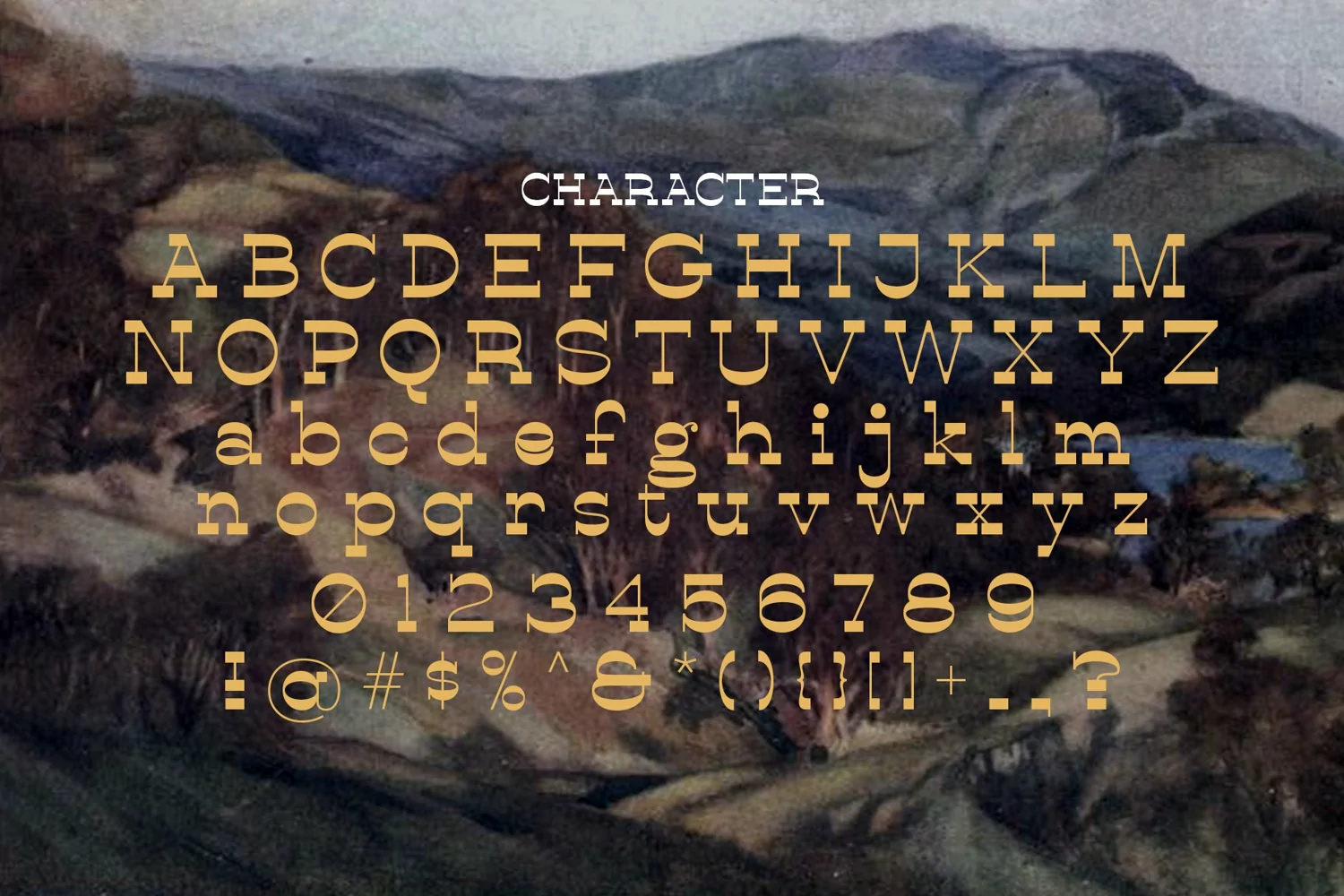
Agaria is a reverse contrast typeface. Perfect for display, poster, quotes, film, craft needs, book cover, business card, packaging, merchandise, branding, logo, logotype, header, title, and many more.